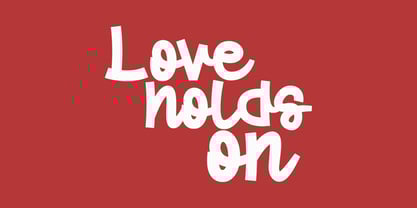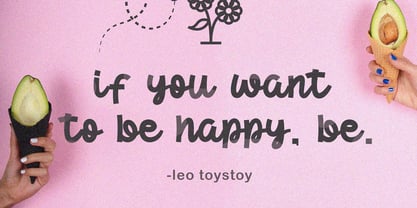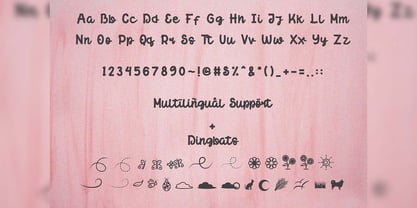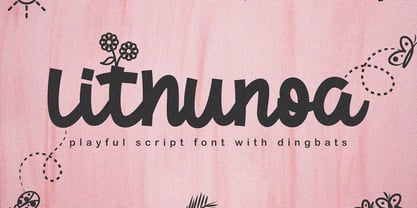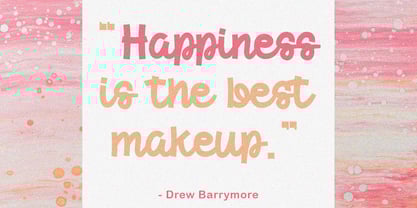
Lithunoa
by Jadatype
The Lithunoa Font Family was designed by Jada Akbal and published by Jadatype. Lithunoa contains 2 styles. More about this family
Lithunoa is a lovely duo font (display and dingbats). It has an incredibly interesting style and it is the ideal choice for a wide range of casual or informal designs. Whether you’re using it for crafting, digital designing, presentations or greeting cards making, it’s perfect!
Designers: Jada Akbal
Foundry: Jadatype